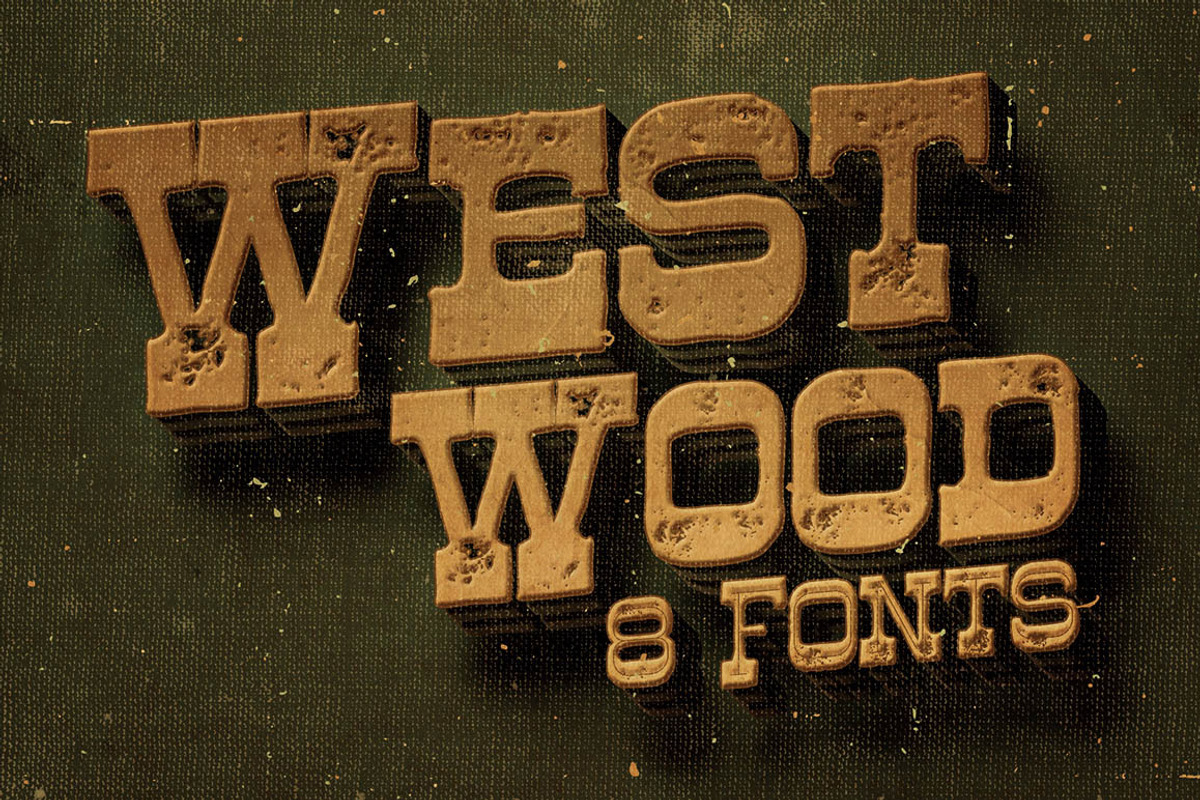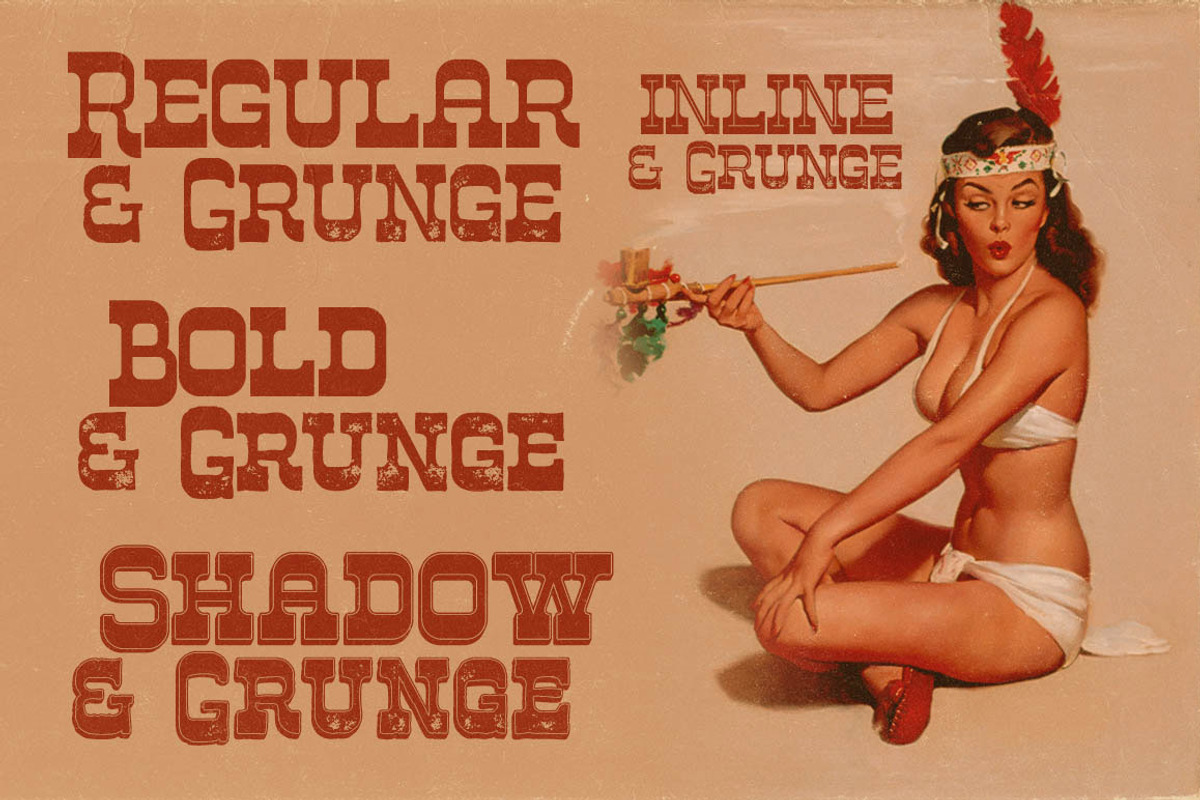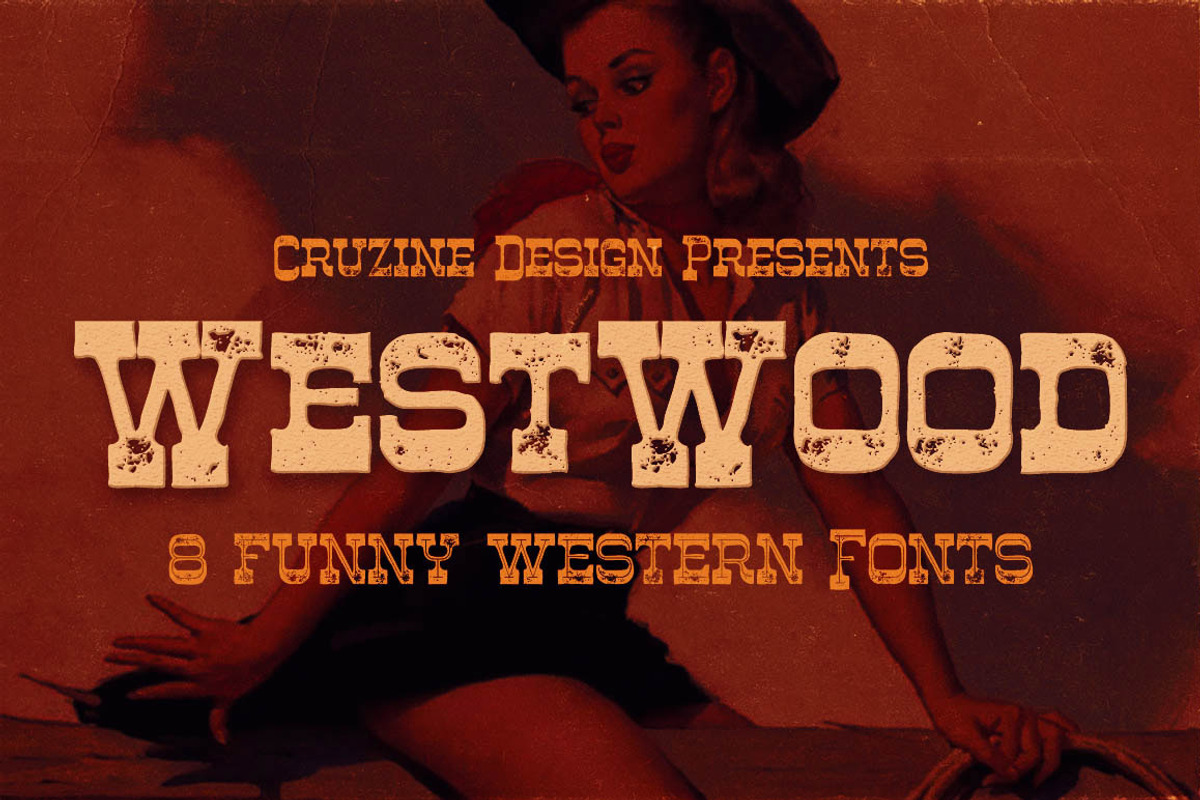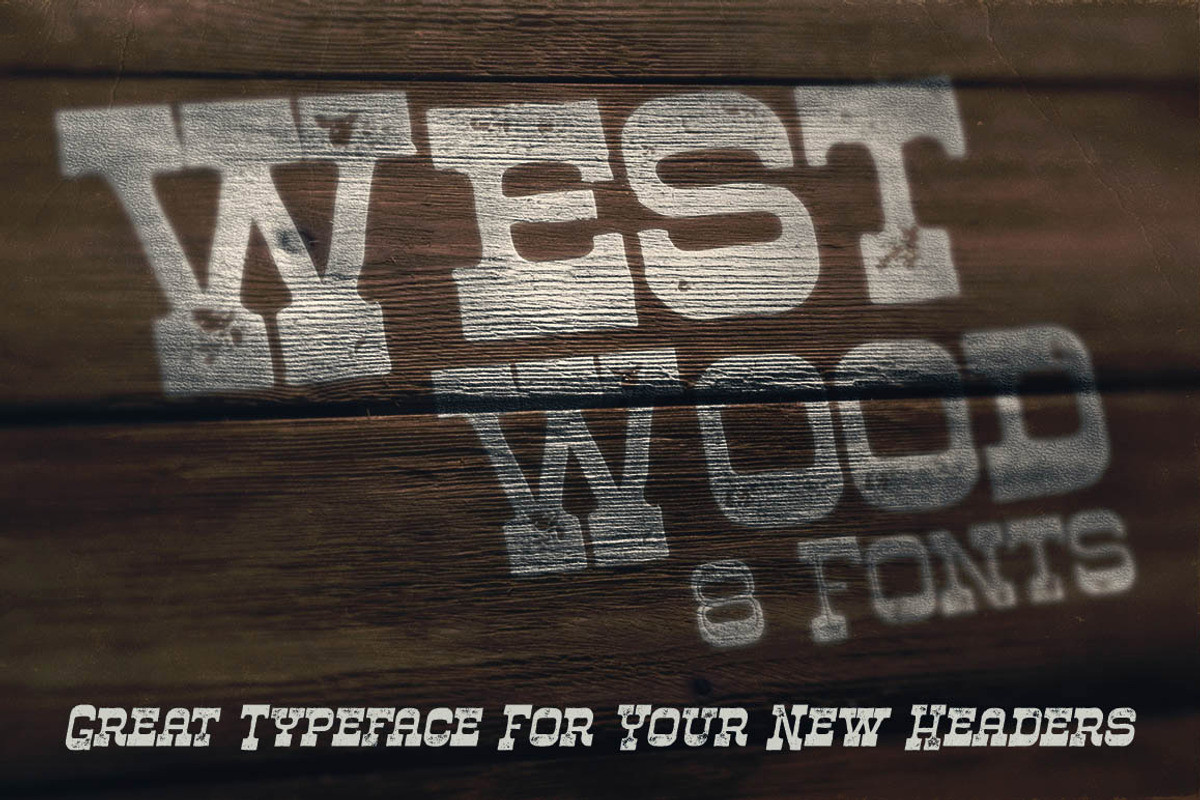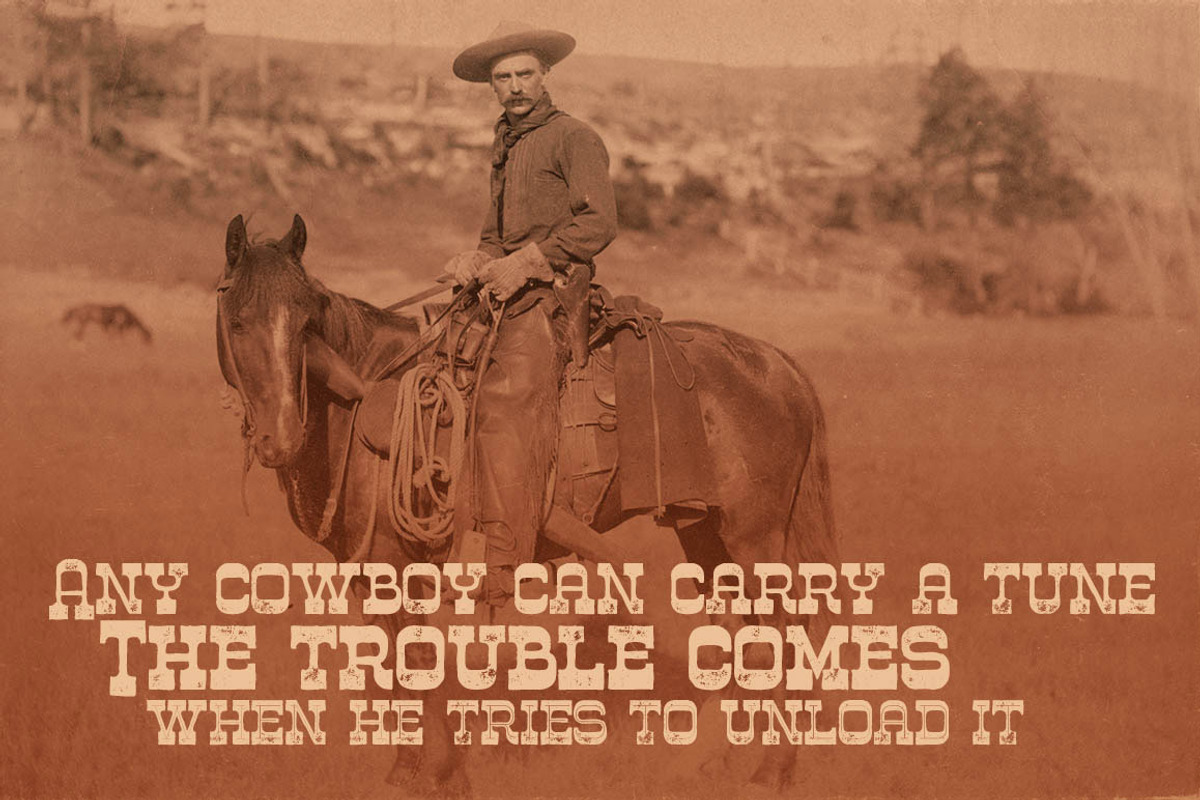
Westwood - Funny Western Font
Westwood - Funny Western Font by Cruzine is a font selected for branding, posters, packaging, typography.
Why Westwood - Funny Western Font is worth a look
Westwood - Funny Western Font by Cruzine fits naturally into Branding, posters, packaging, typography.